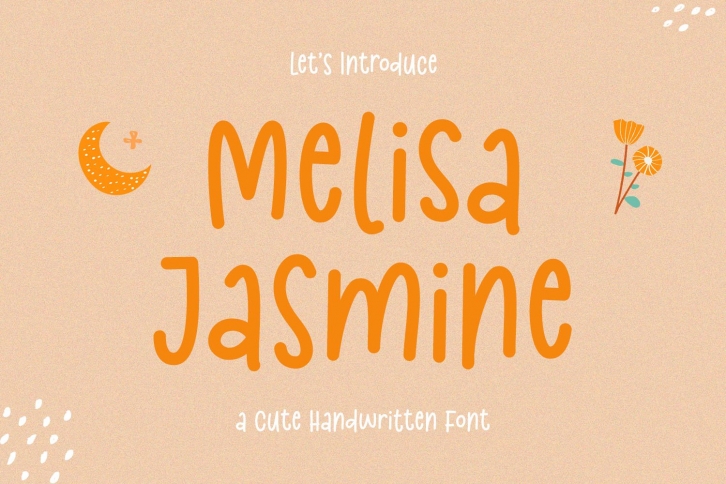
Cute Handwritten is a gorgeous font that was realeased on May 19, 2021. The font can be used in many style contexts and design environments. Perfect for invitations, magazines, websites, logos, and more! It was designed by Kotak Kuning Studio and the file size is 12.62 MB. Thanks for checking out this font!